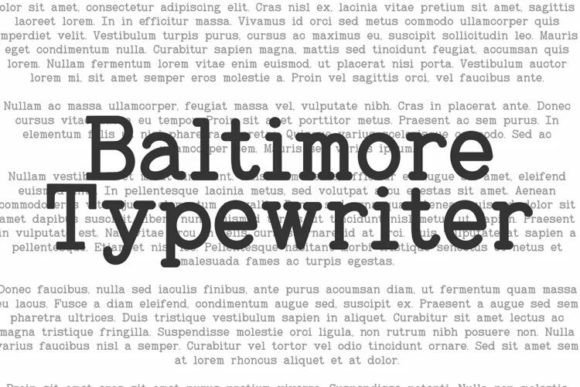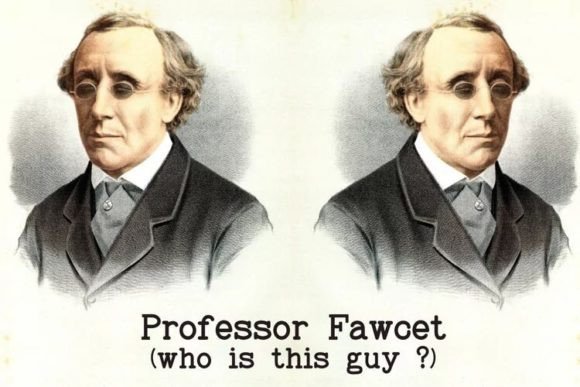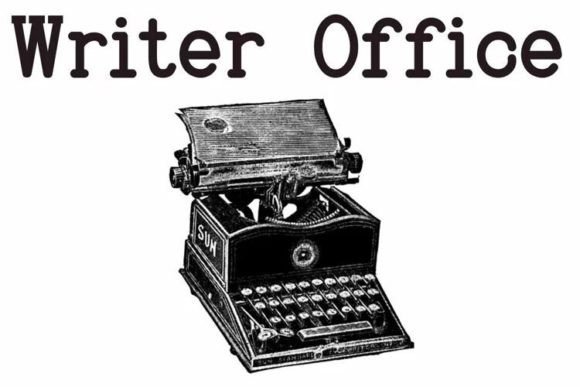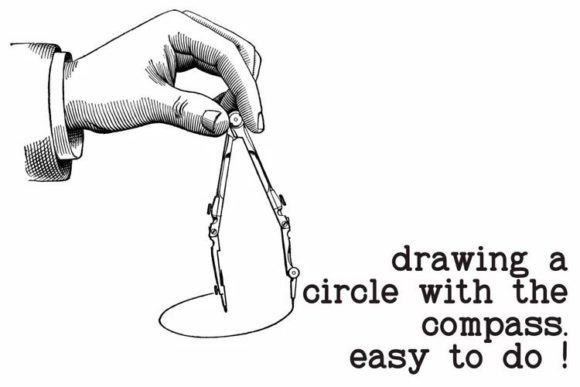
Baltimore Typewriter PACK: Elevate Your Designs with a Touch of Vintage Charm
In the world of design, fonts play a crucial role in conveying the tone and aesthetic of a project. For those seeking to add a dash of nostalgia and classic charm, the Baltimore Typewriter PACK is an excellent choice. This vintage-inspired font collection is designed to bring the authentic look and feel of typewritten text to modern designs, making it perfect for crafters, designers, and anyone looking to infuse their work with a retro vibe.
The Charm of Typewritten Text
There’s something undeniably charming about typewritten text. The tactile nature of pressing keys, the sound of metal hitting paper, and the distinctive font styles that come with it all contribute to a unique aesthetic that has captivated designers and crafters for decades. The Baltimore Typewriter PACK captures this essence beautifully, offering a collection of fonts that mimic the look of classic typewriters.
Authentic Typewriter-Style Characters
What sets the Baltimore Typewriter PACK apart is its attention to detail. The fonts within this collection are crafted to resemble the authentic characters produced by vintage typewriters. From the slight imperfections and irregularities to the distinctive letterforms, each font is a homage to the classic machines that were once the backbone of written communication. Whether you’re working on a poster, an invitation, or any other design project, these fonts will add a layer of authenticity and nostalgia that’s hard to replicate with modern digital fonts.
The versatility of the Baltimore Typewriter PACK makes it an excellent addition to any designer’s toolkit. Here are a few ways you can use this font collection to elevate your projects:
• Posters and Flyers: Add a vintage touch to your promotional materials, making them stand out with a classic aesthetic.
• Invitations: Whether it’s for a wedding, a birthday party, or any other event, typewriter-style fonts bring a sense of intimacy and personal touch.
• Digital and Print Media: From blog posts and social media graphics to brochures and magazines, the Baltimore Typewriter PACK can add a unique flair to your content.
• Crafting and DIY Projects: For crafters, this font can be used in a variety of projects, from handmade cards to personalized gifts.
Why Choose Baltimore Typewriter PACK?
With so many fonts available, why should you choose the Baltimore Typewriter PACK for your projects? Here are a few compelling reasons:
• Unique Aesthetic: In a sea of modern and sleek fonts, the Baltimore Typewriter PACK offers a distinctive vintage look that’s sure to grab attention.
• High-Quality Design: Each font within the collection is meticulously designed to ensure clarity, legibility, and style.
• Timeless Appeal: The classic look of typewritten text never goes out of style, ensuring that your designs remain relevant for years to come.
The Baltimore Typewriter PACK is more than just a font collection; it’s a gateway to infusing your designs with a touch of nostalgia and timeless charm. Whether you’re a professional designer or a crafting enthusiast, this vintage-inspired pack offers a simple yet effective way to elevate your projects. With its authentic typewriter-style characters, versatility, and high-quality design, the Baltimore Typewriter PACK is an excellent choice for anyone looking to add a classic touch to their modern designs.